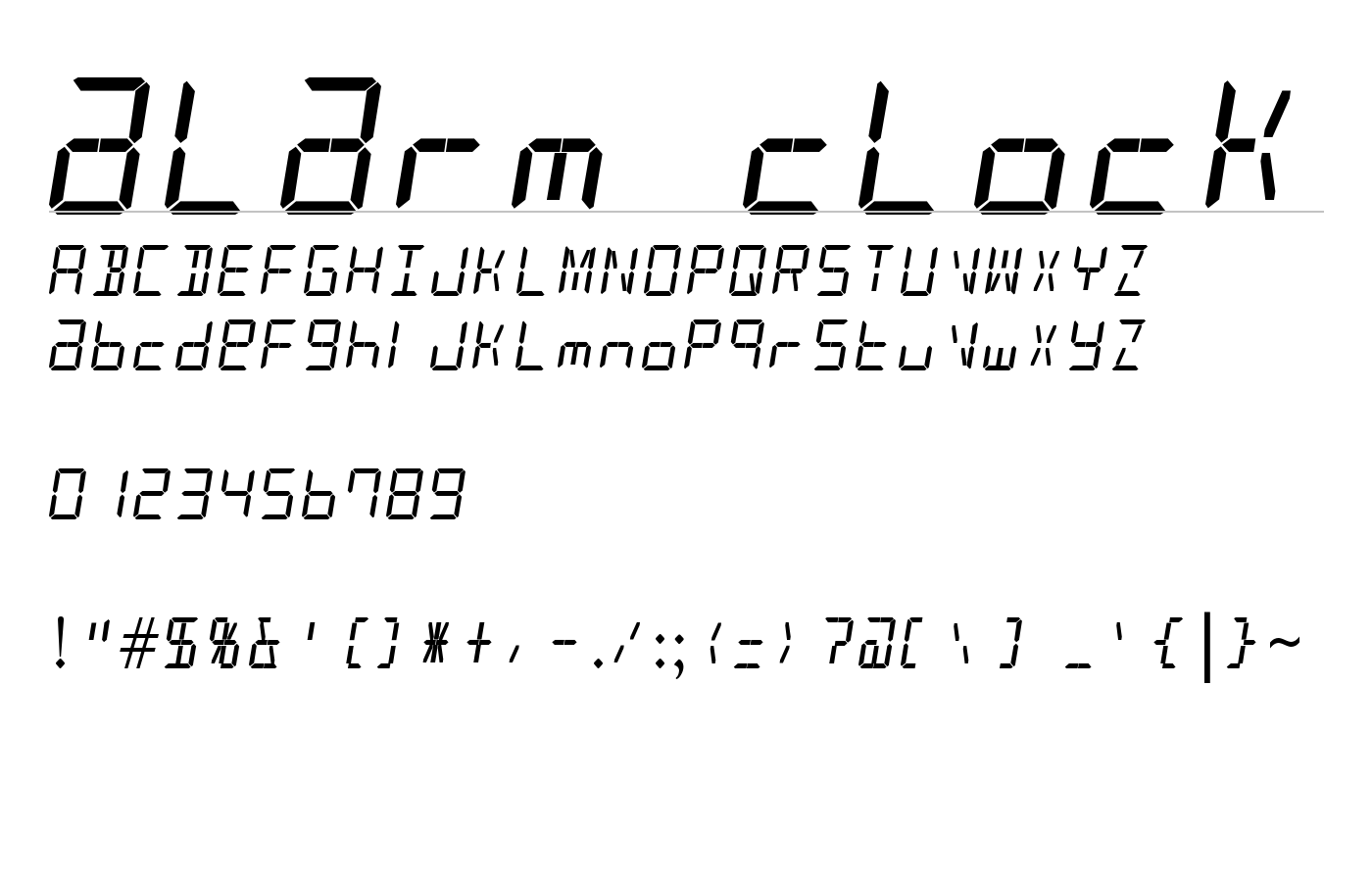
Alarm Clock is a distinctive sans-serif font inspired by digital displays, featuring geometric, segmented letterforms that mimic the look of classic alarm clocks. Its slightly condensed, monospaced design with consistent stroke widths conveys a modern, technical vibe ideal for digital-themed projects, tech branding, or retro-futuristic designs. This font works best in headlines, interfaces, and signage where a clear, digital aesthetic is desired.
alarm clock Font
About alarm clock Font